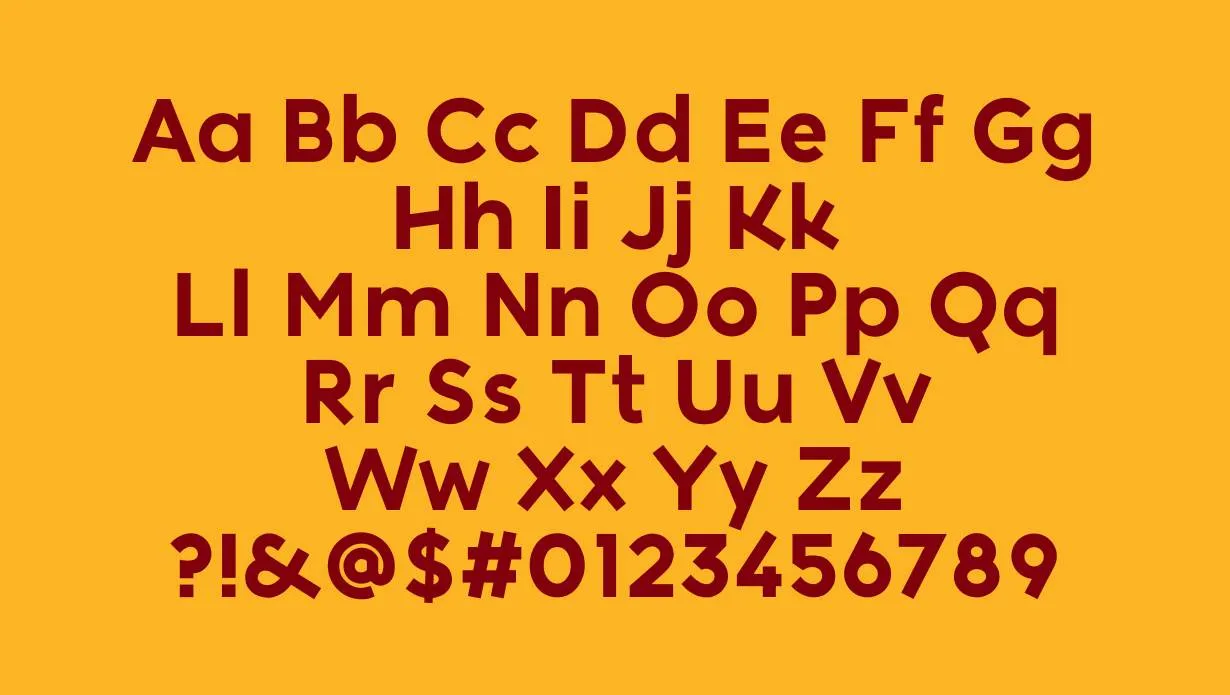
Kotori Rose font is like a bouquet of letters, bringing a touch of floral charm to your words. When you use it, your text becomes like a garden of words, blooming with elegance. It’s ideal for creating designs that need a hint of natural beauty.
| Name | Kotori Rose Font |
| Designer | Brian Jacob |
Kotori Rose’s letters are like delicate petals, each one contributing to the overall floral grace of your message.